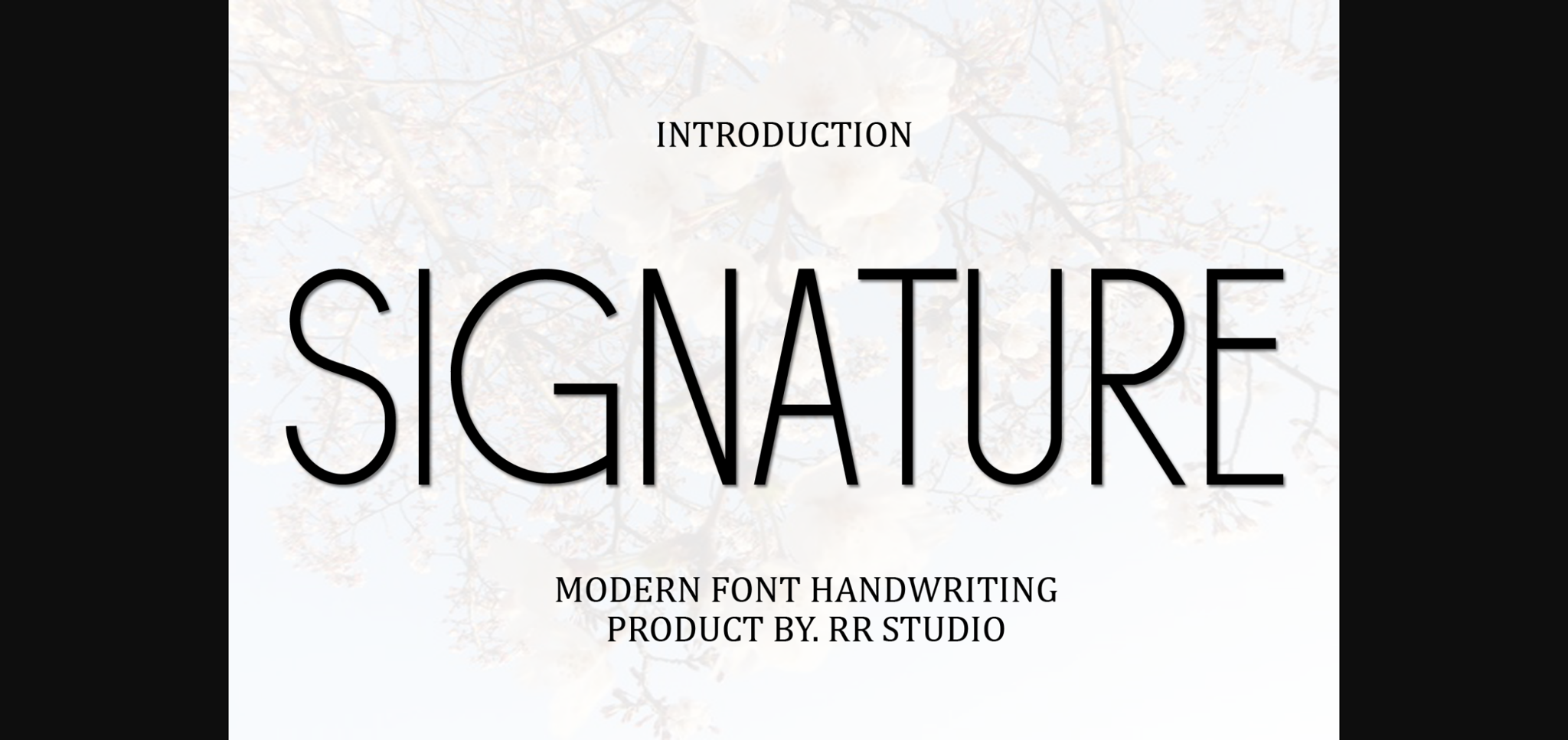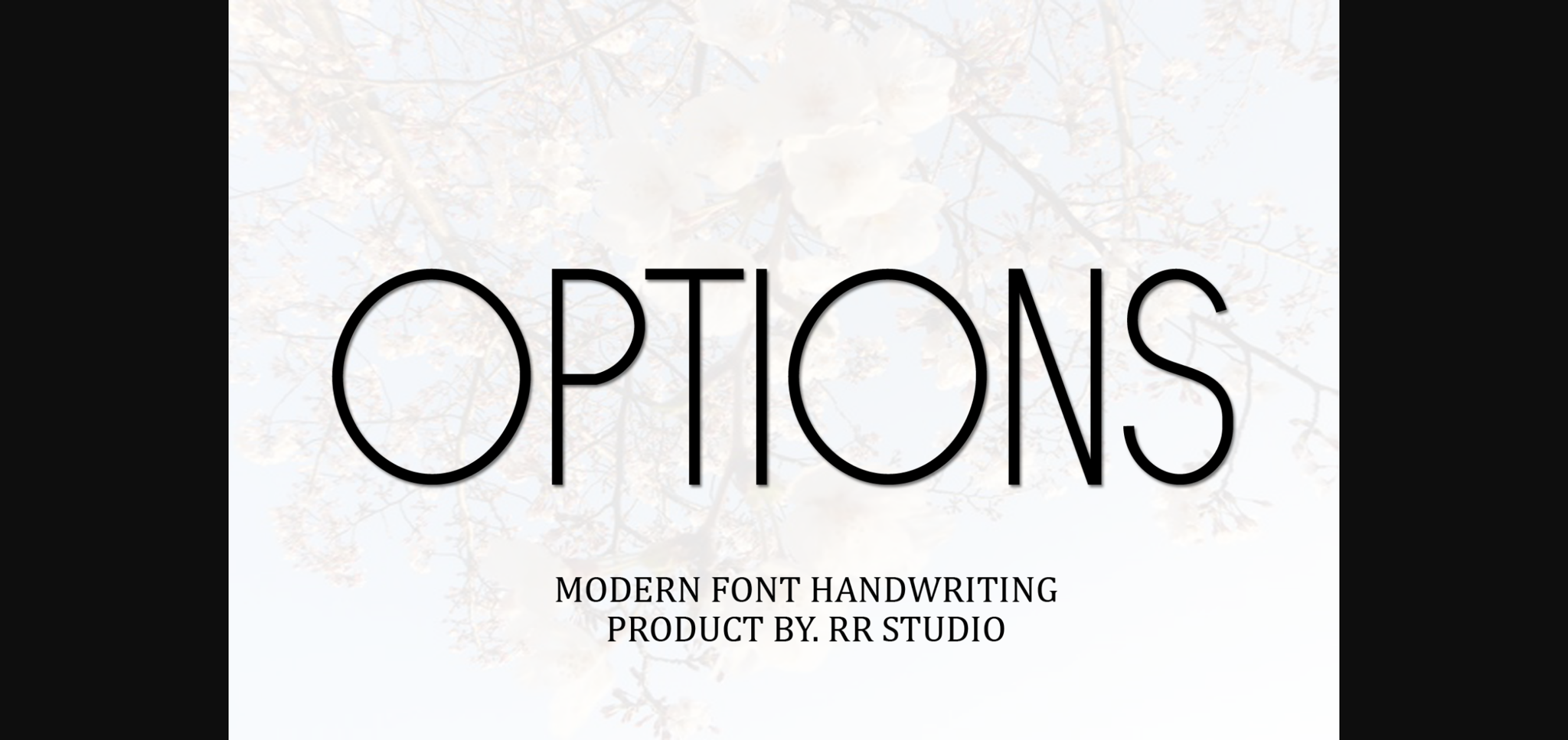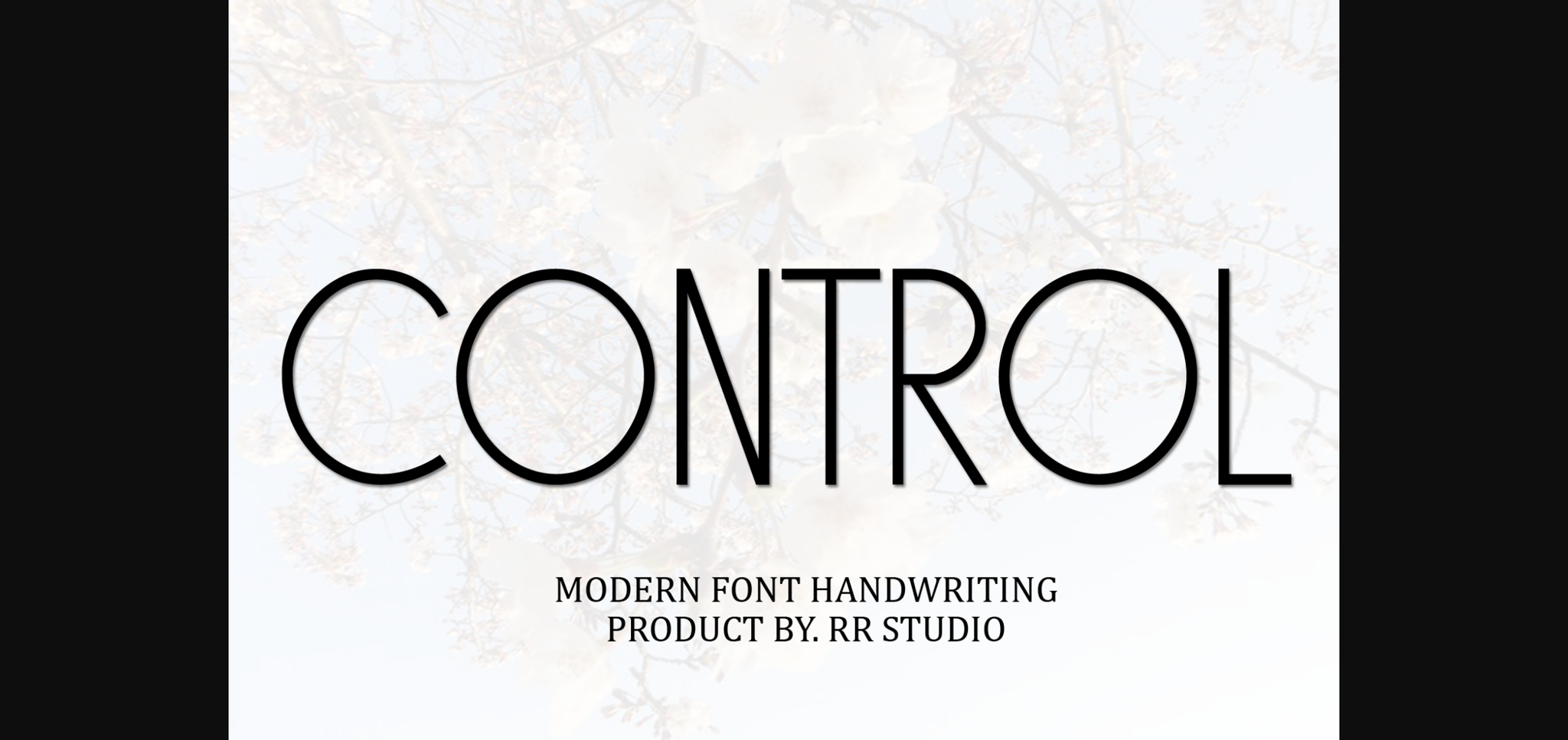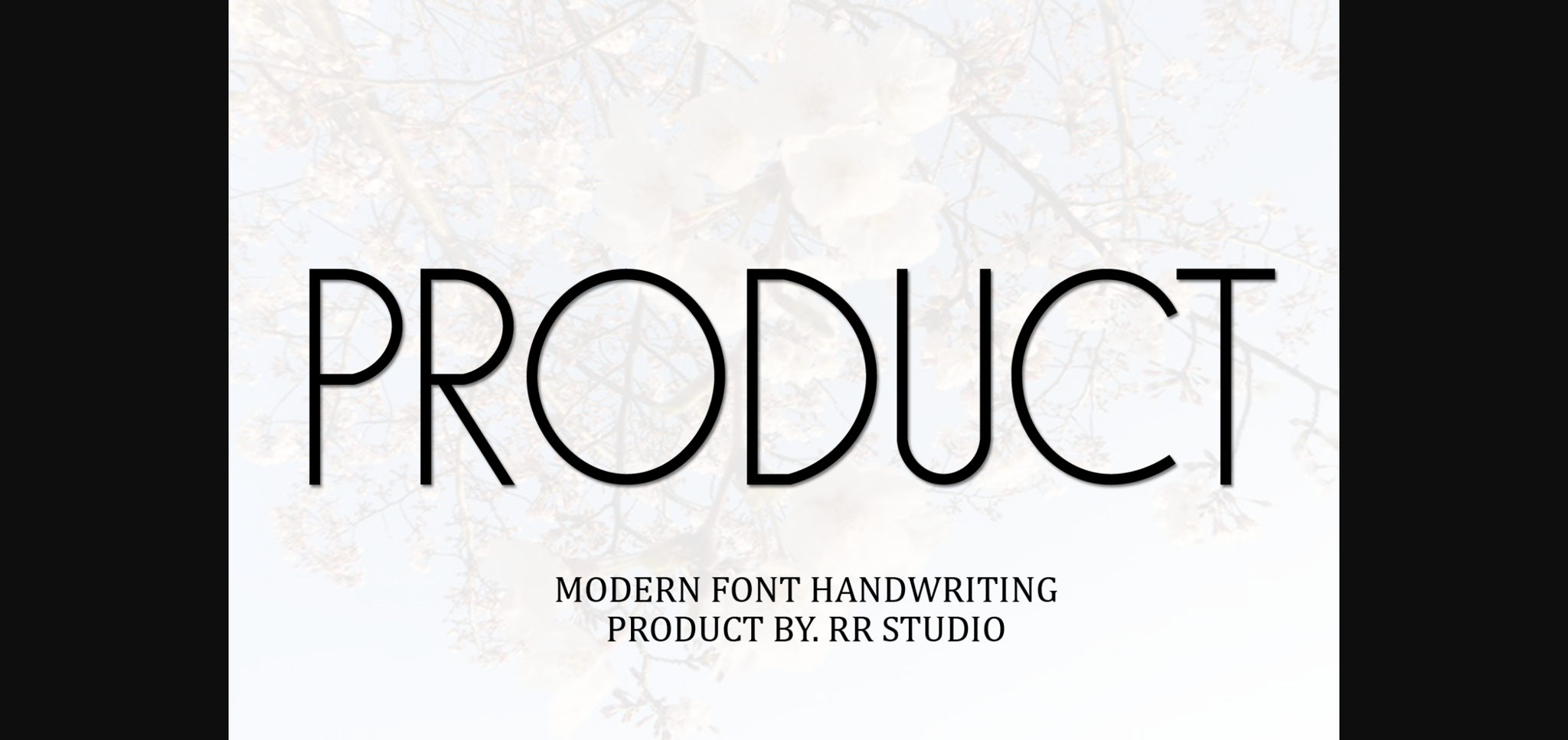
Signature is a classic and simple sans serif font, created in a random and free style. It is suitable for logotype, headline font, in corporate identity, brand identity, apparel industry, poster, music, movie, game, magazine, book, comic, cartoon, YouTube, Instagram, website, or any of your creative design projects